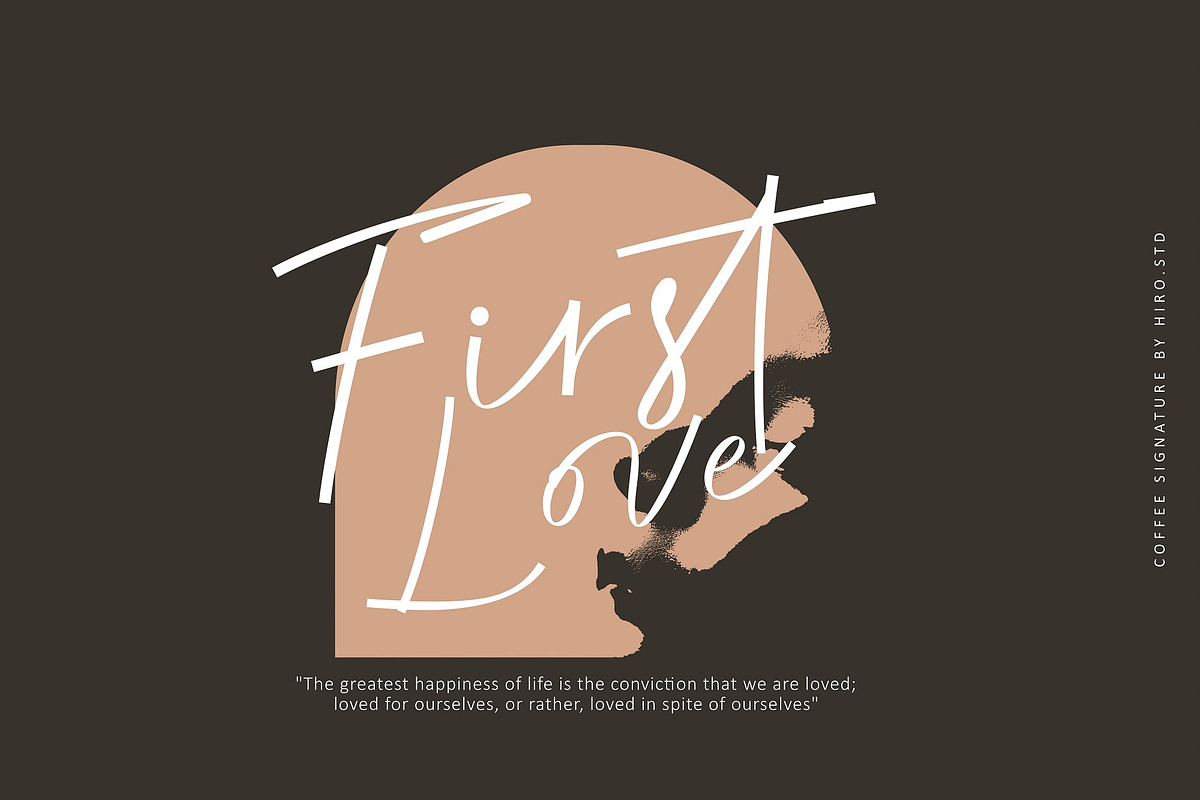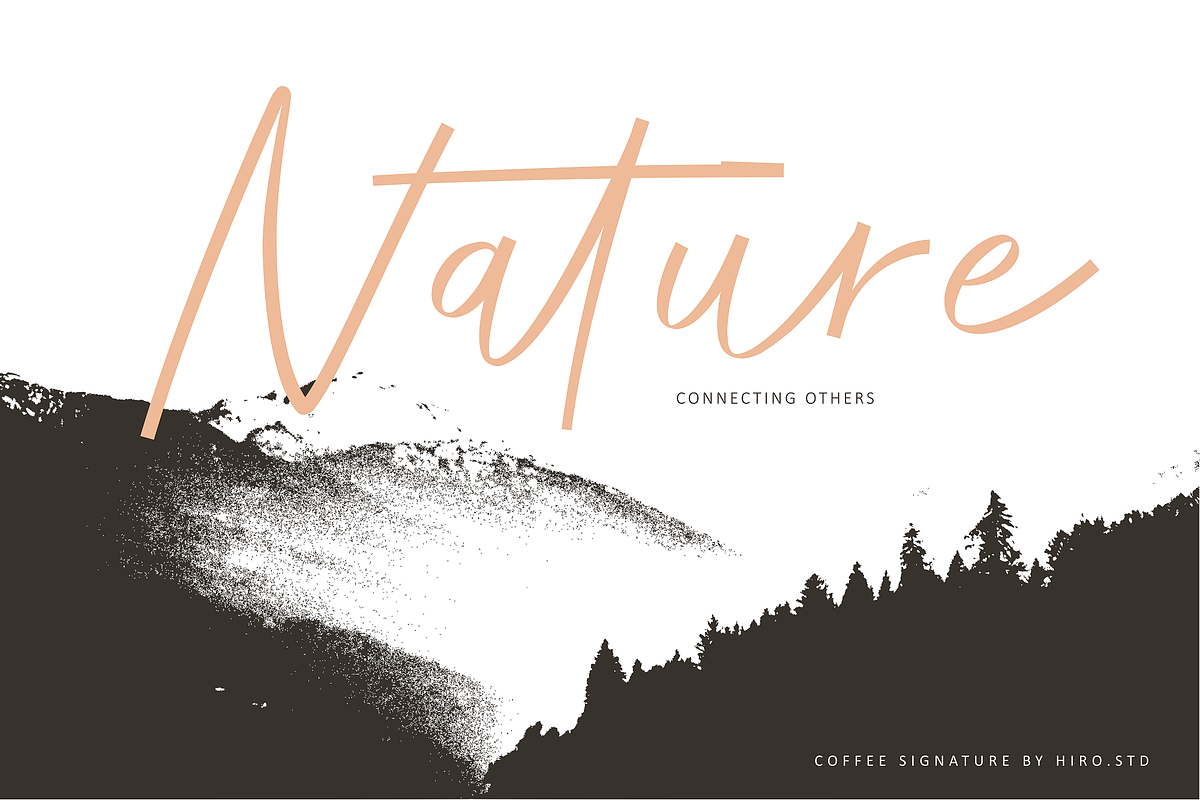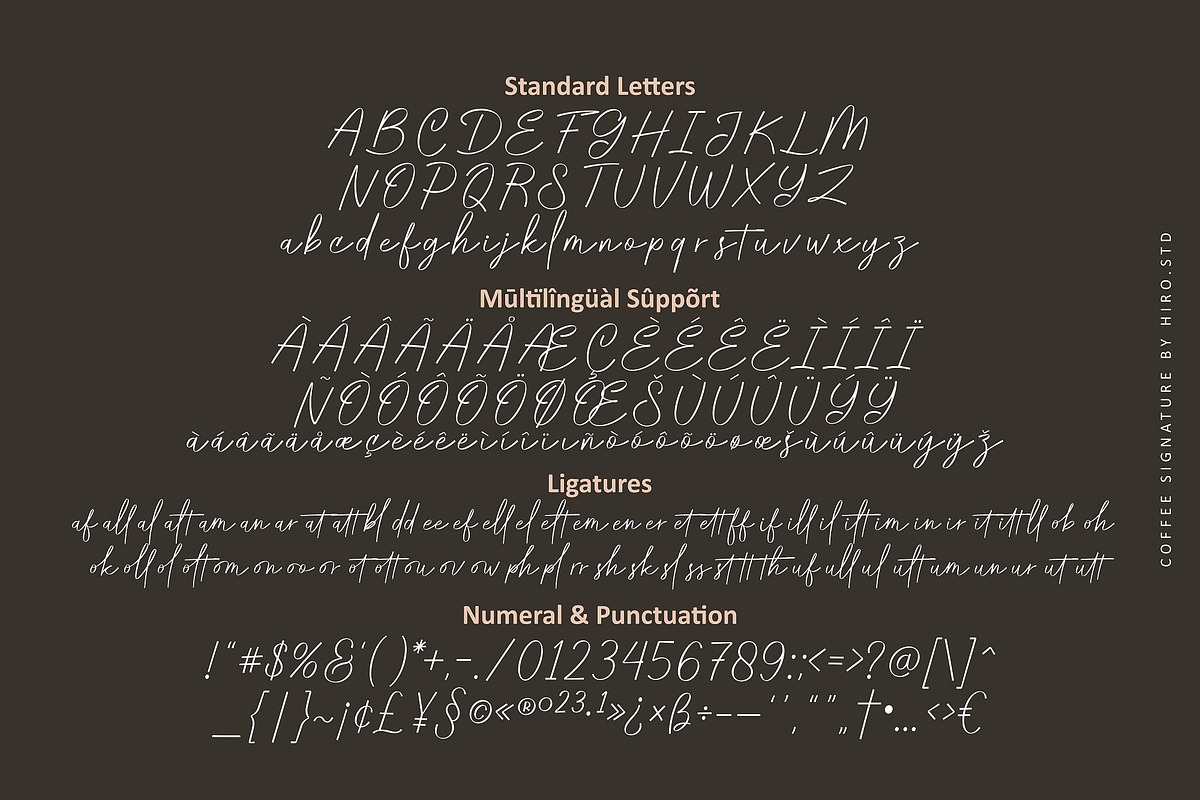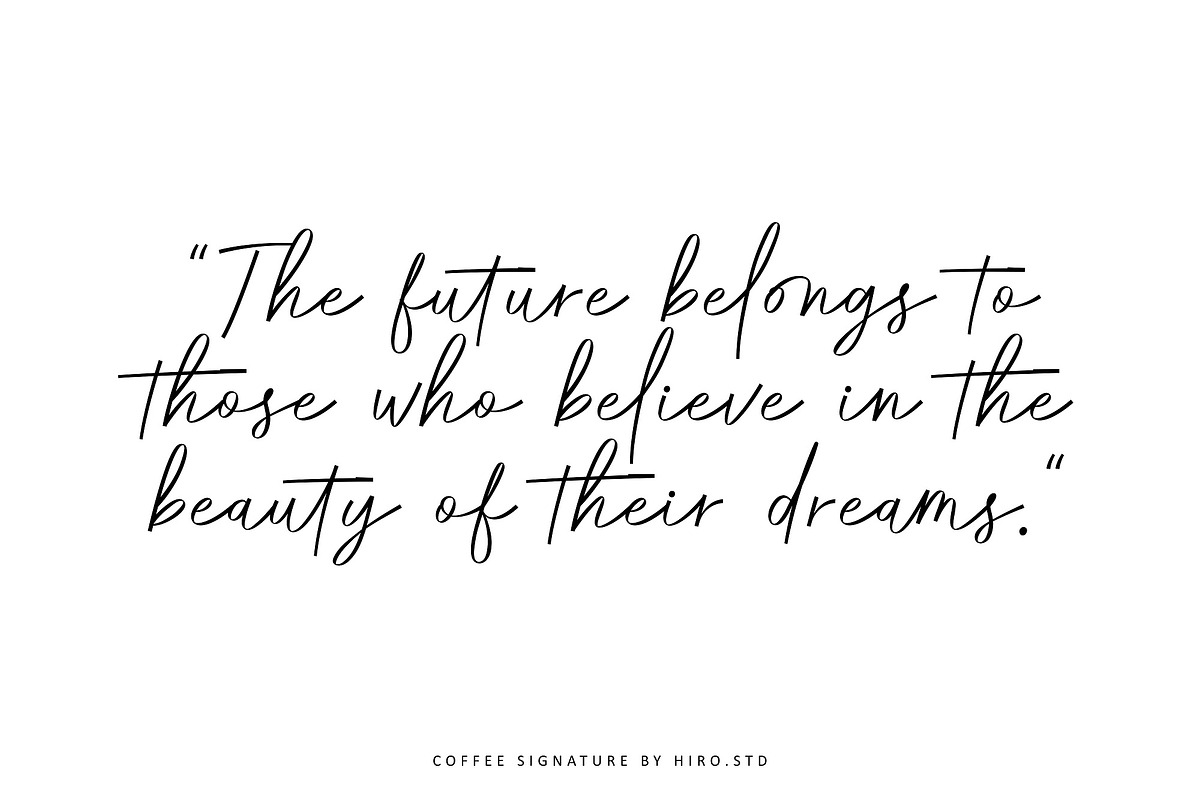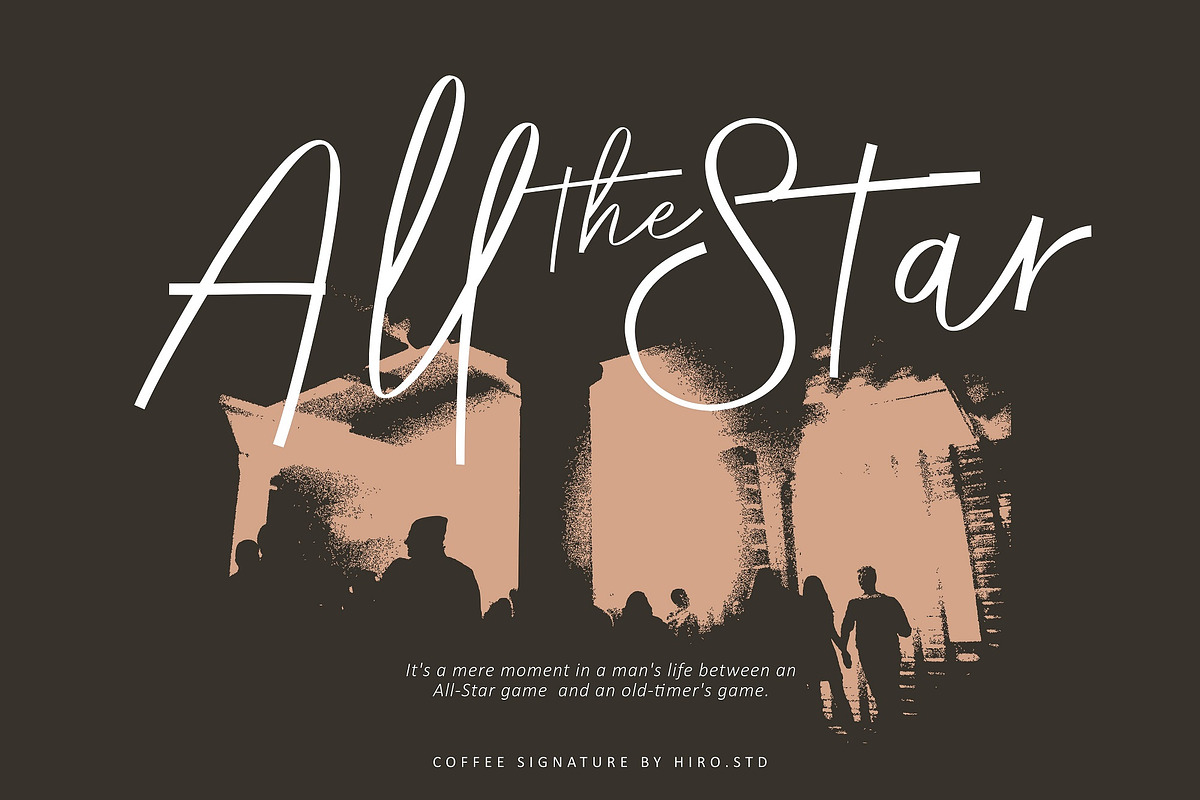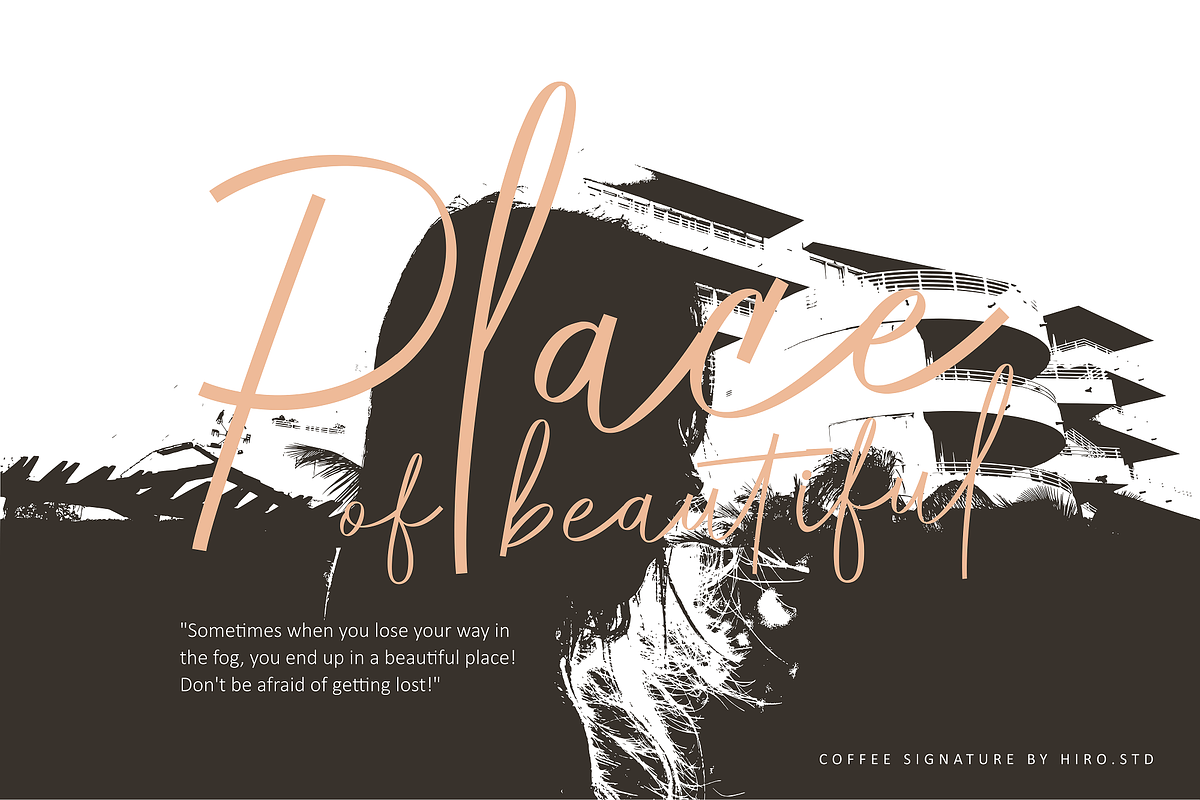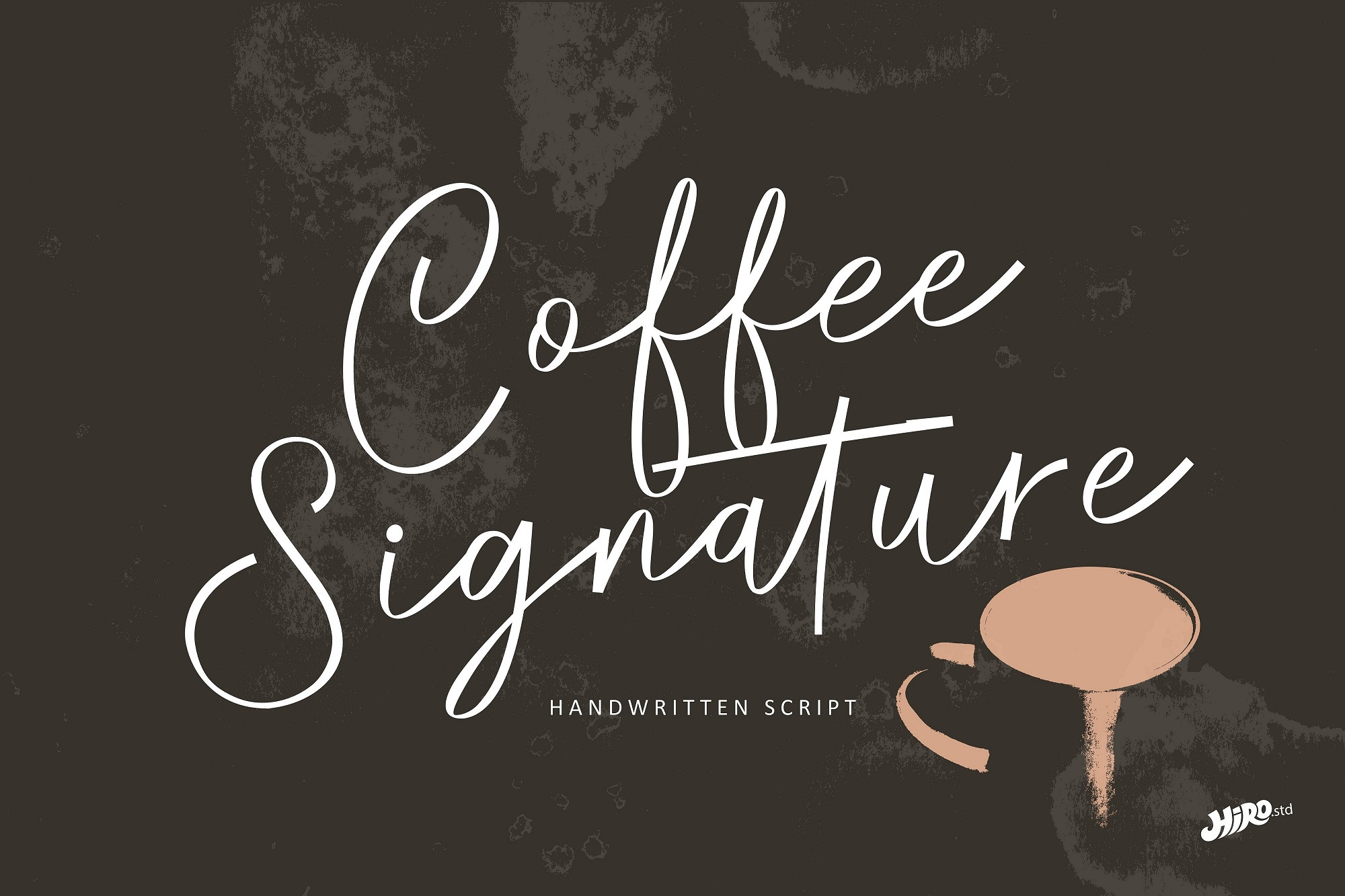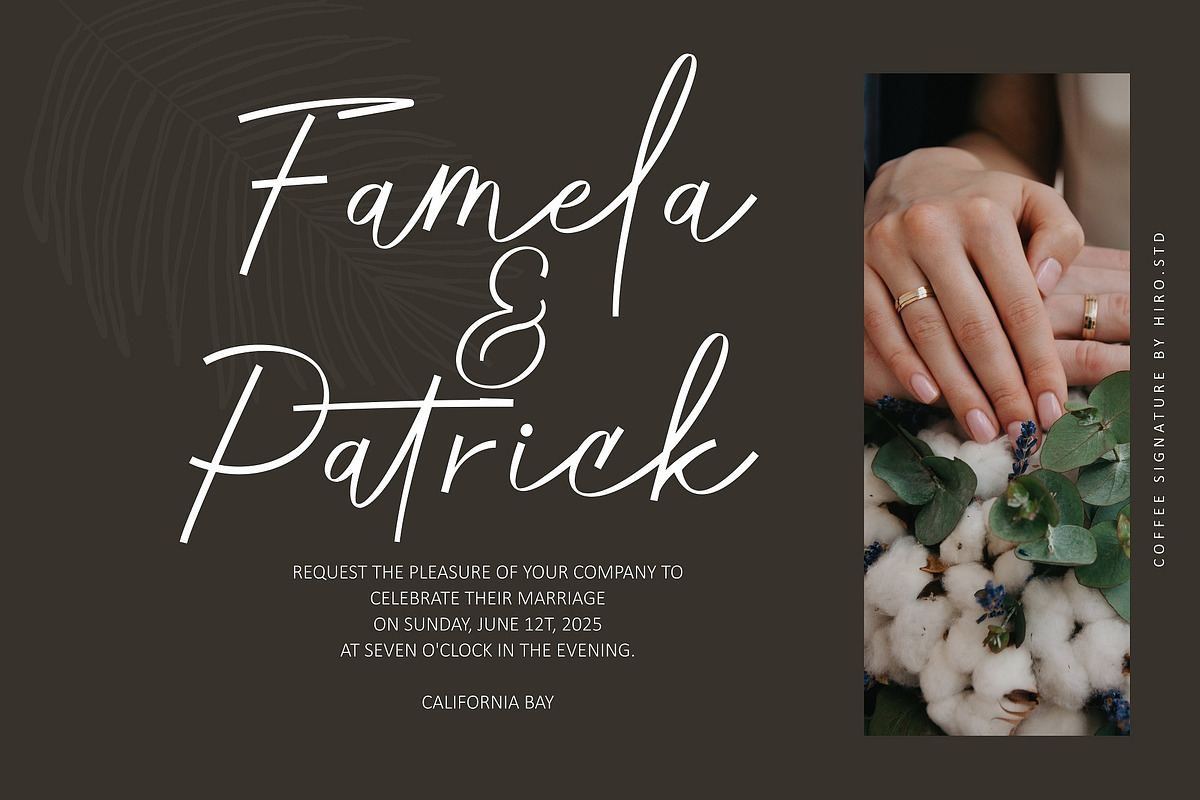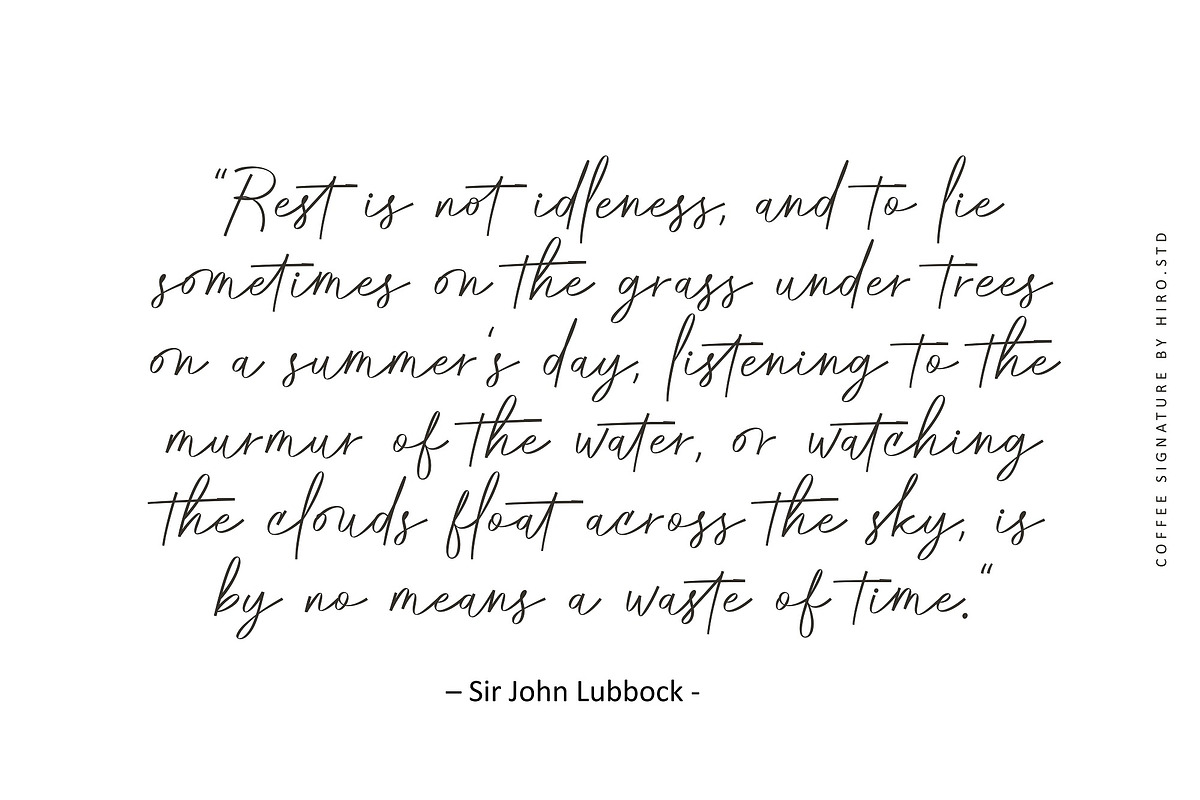
Coffee Signature - Handwritten Font
Coffee Signature is Handwritten Font.
This font describes about fashion, stylish, casual, classy, women, dynamic, easy to use and will bring a good harmony when the letters are connected and paired each other.
- Uppercase and lowercase letters
- 66 Opentype Ligatures
USE Coffee Signature works great in any logotype, wedding invitation, merchandise, stationery, magazines, product packaging, quotes and any projects that need all about handwriting taste.